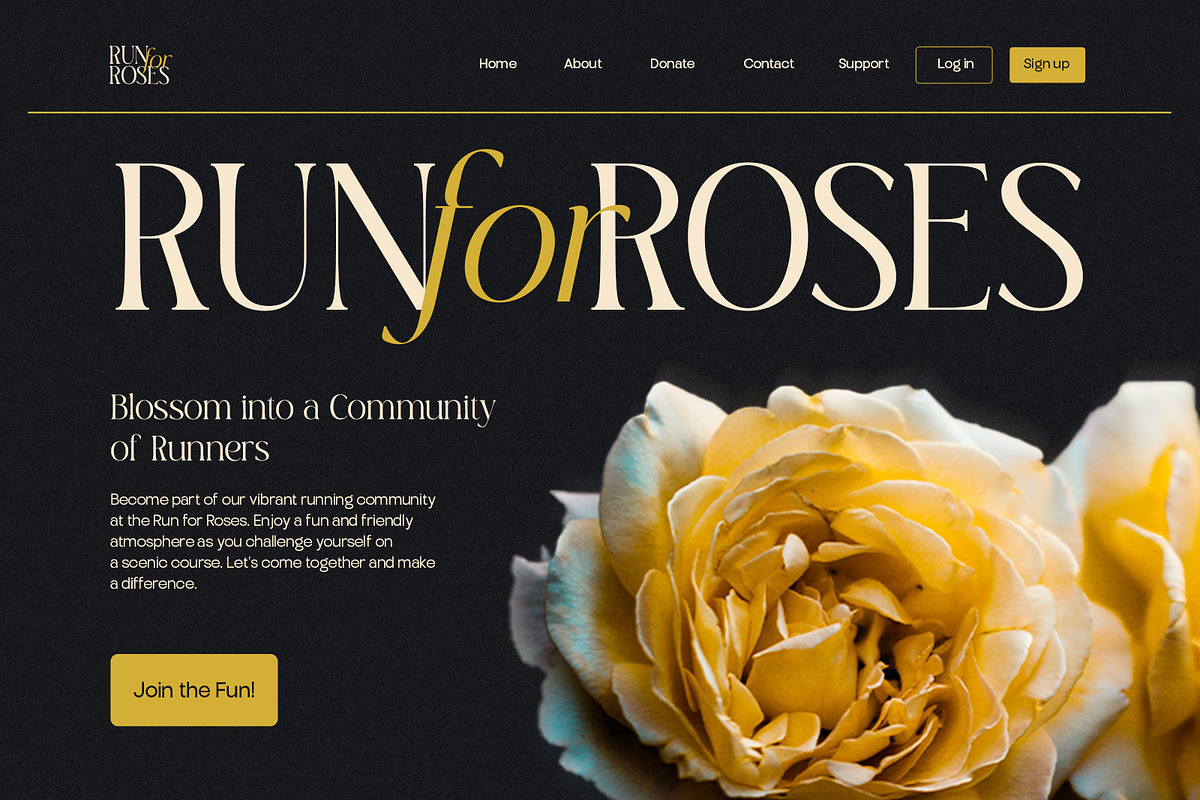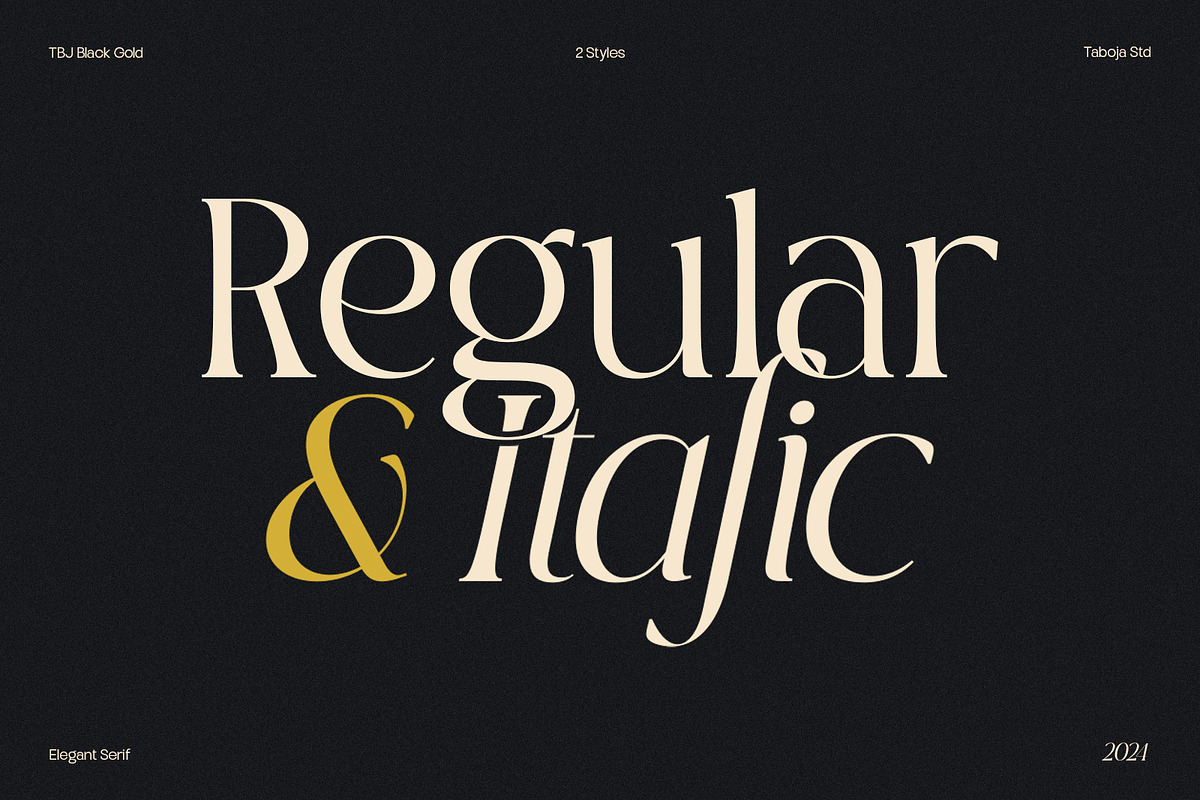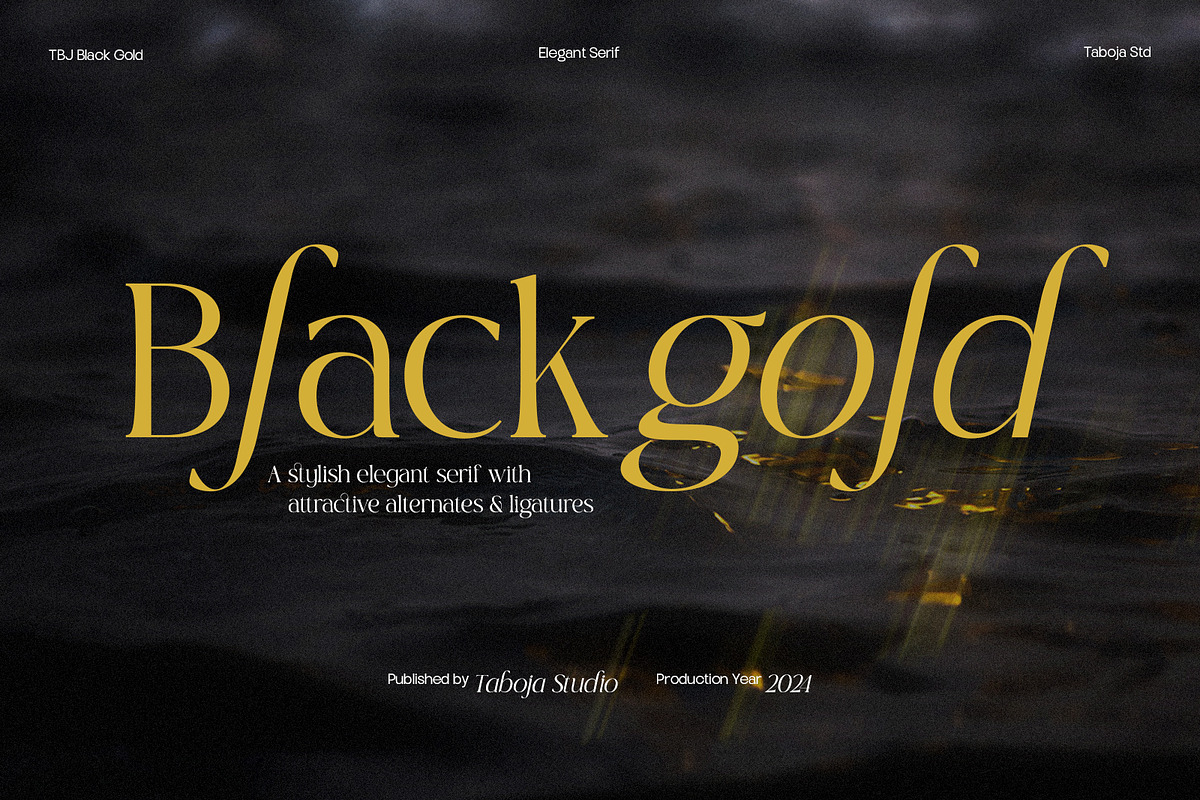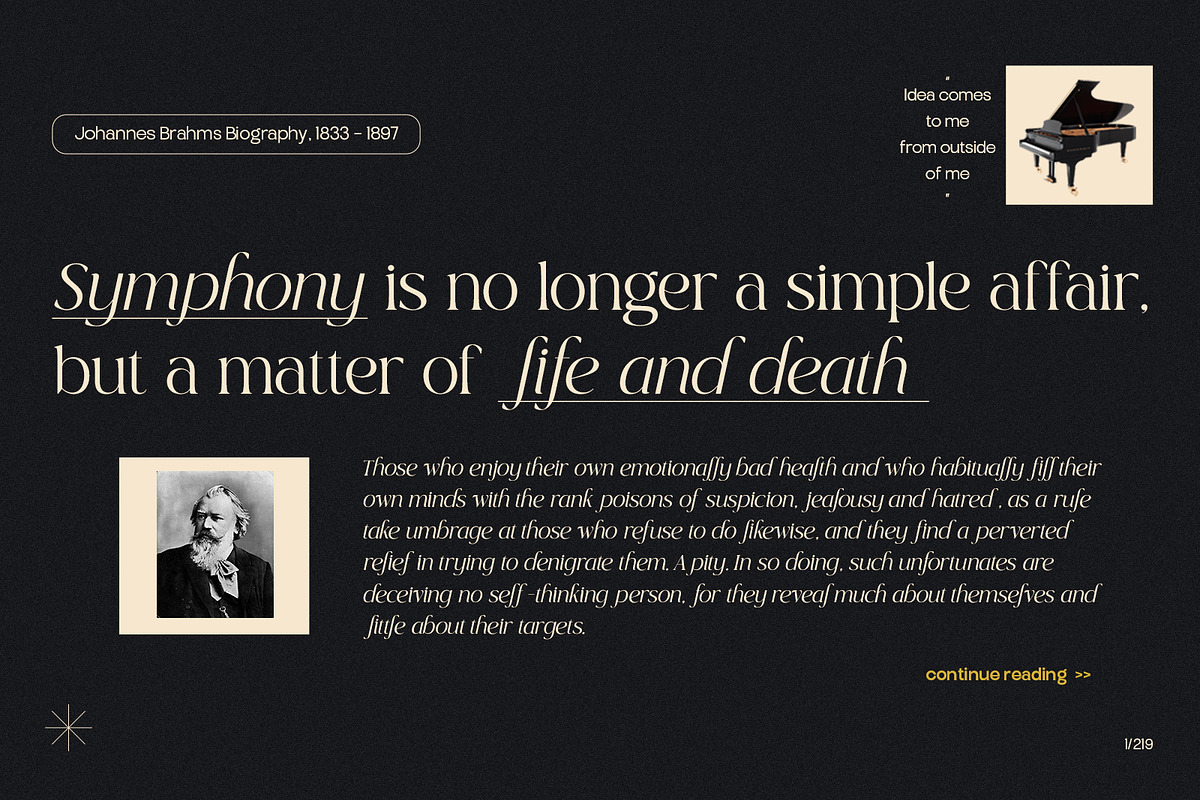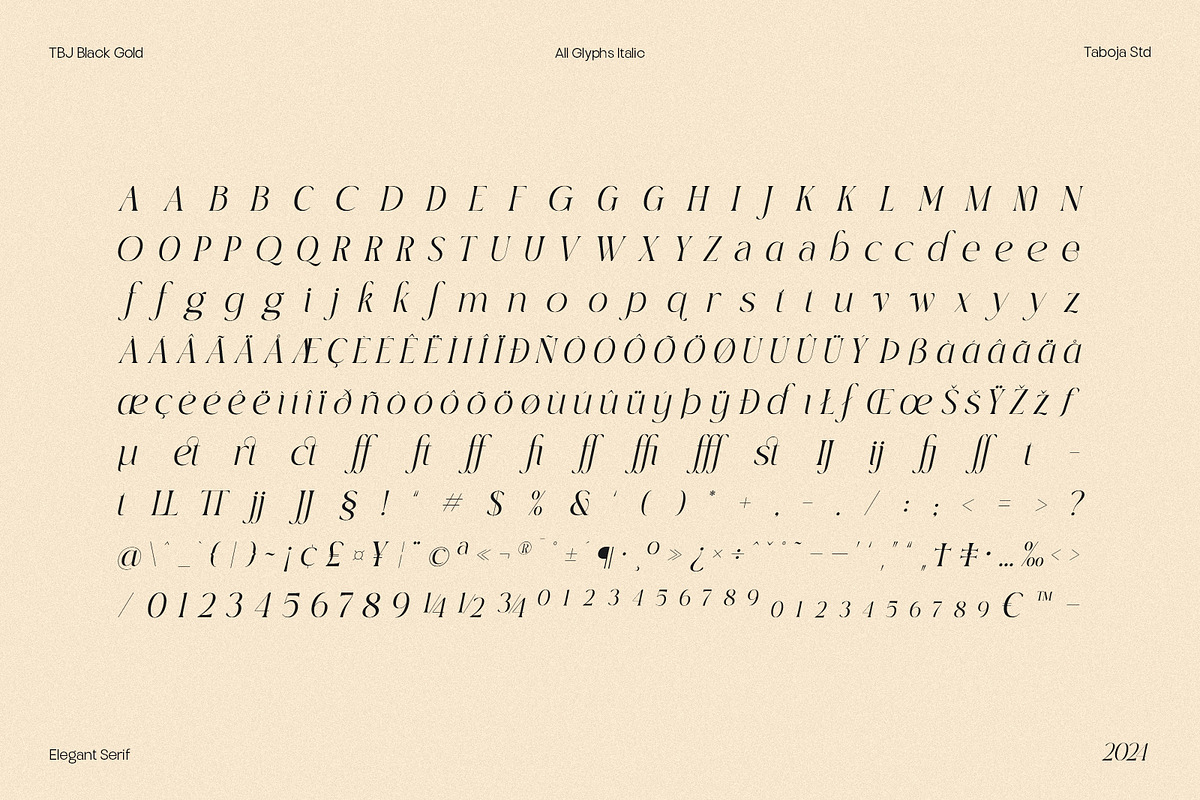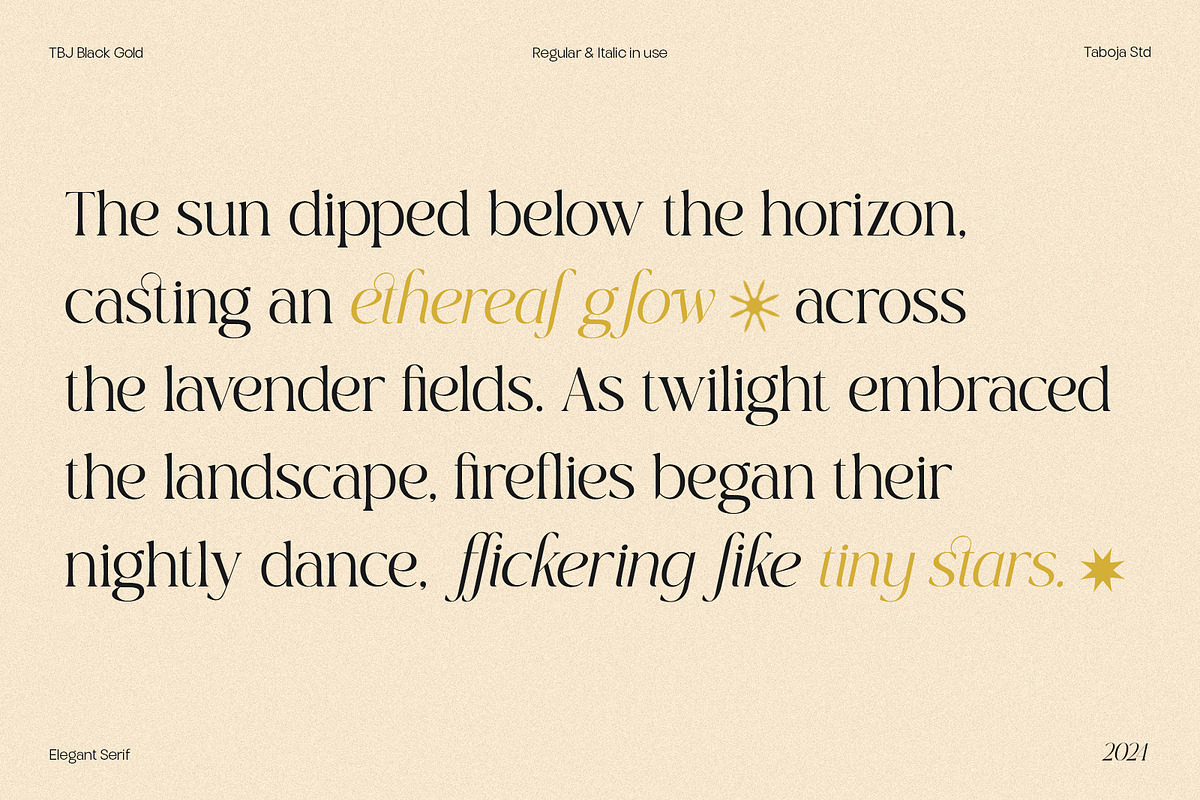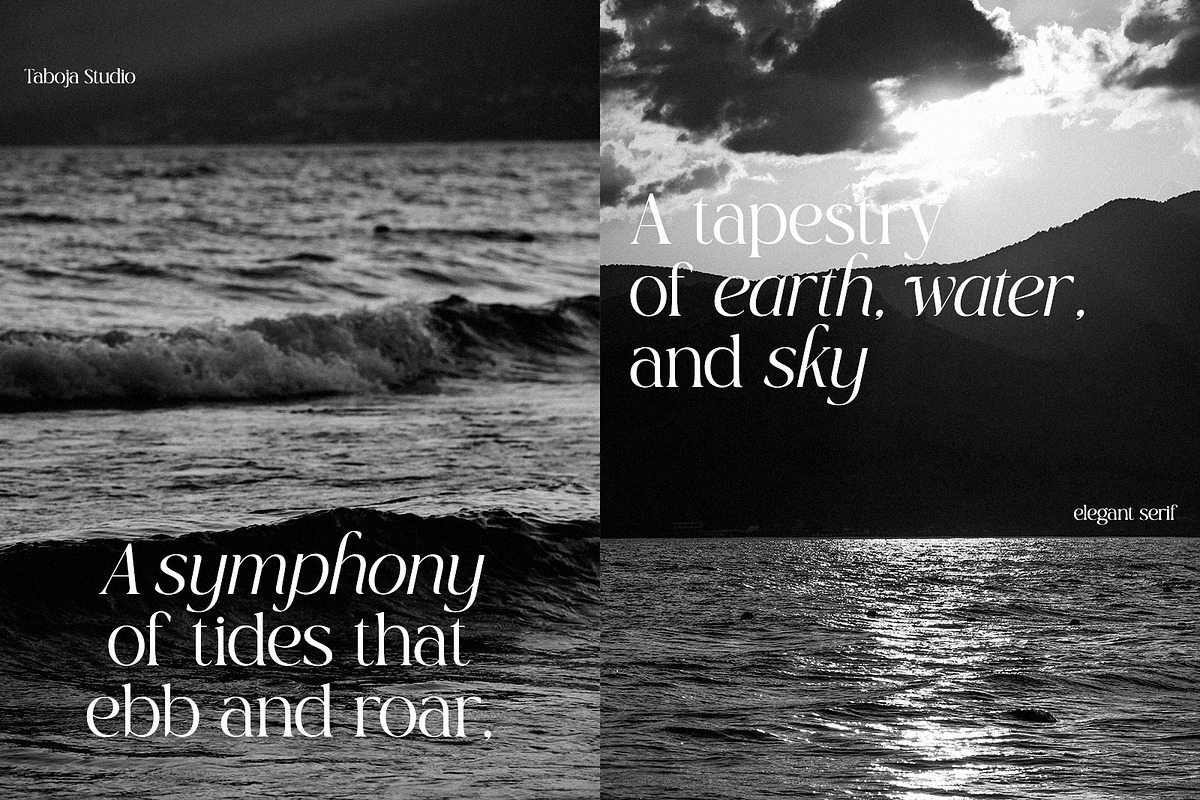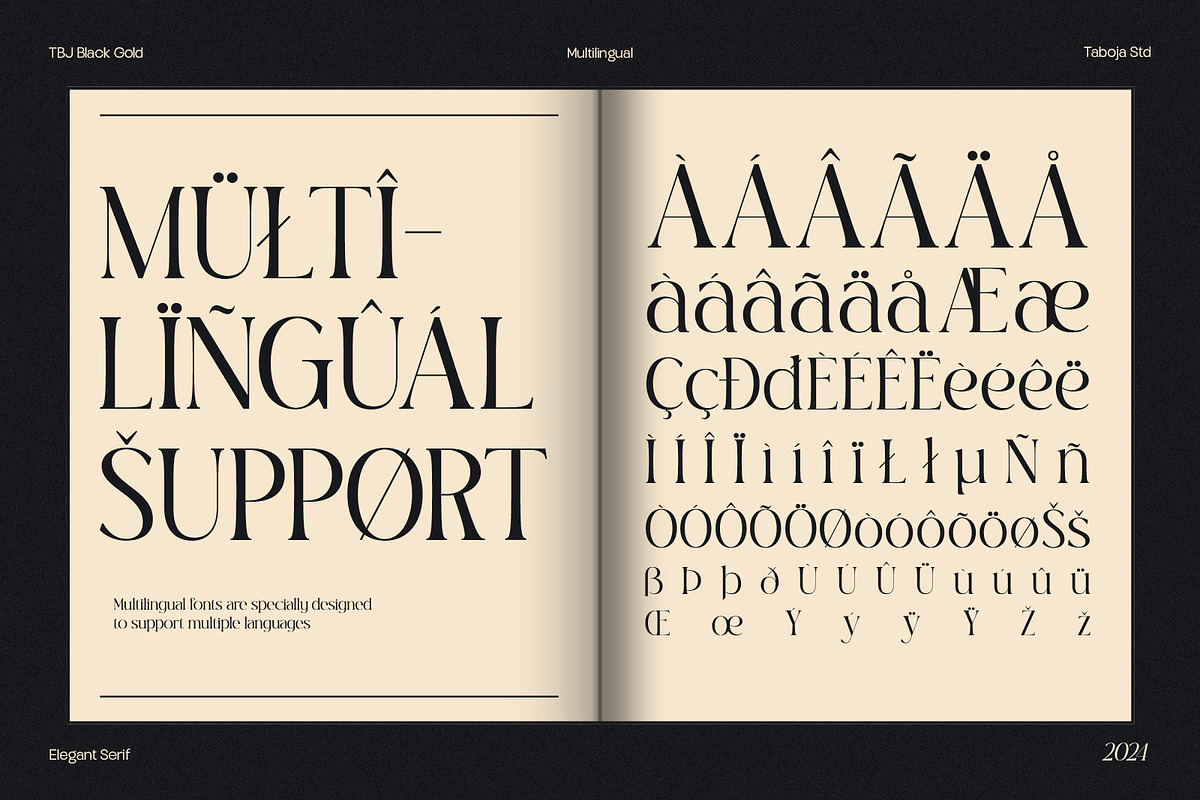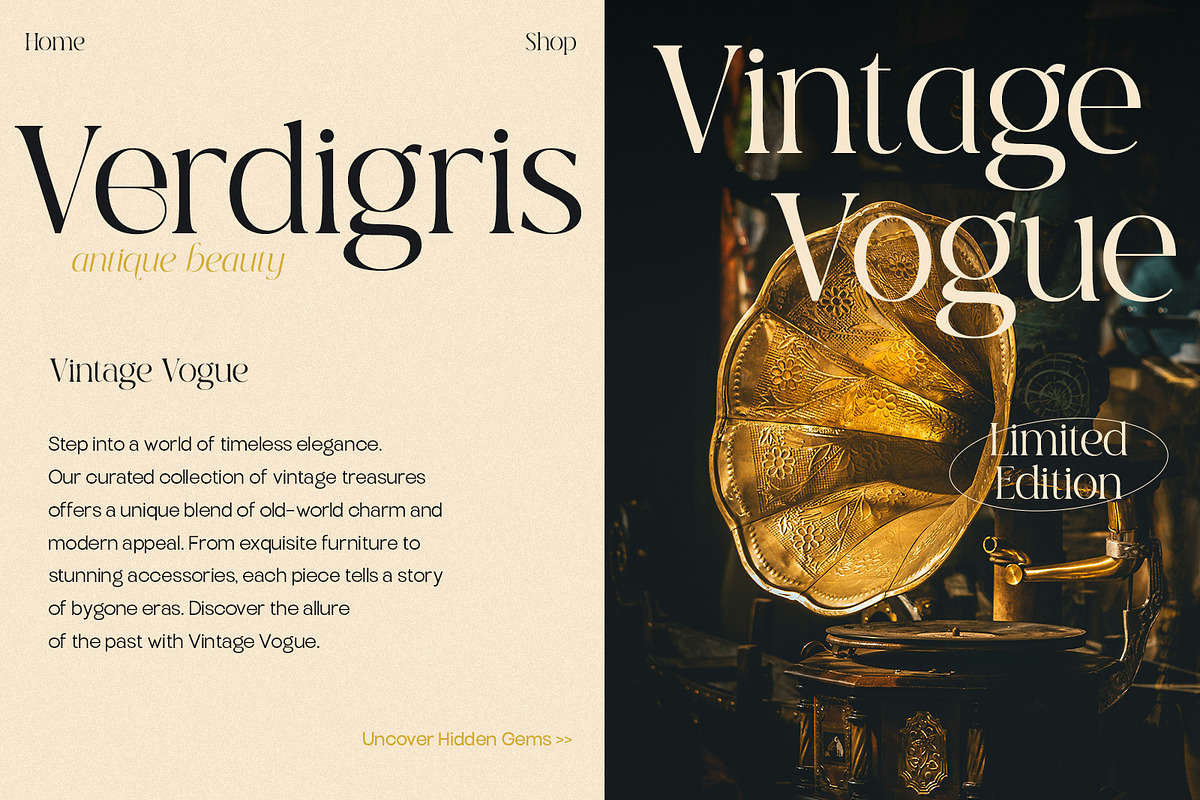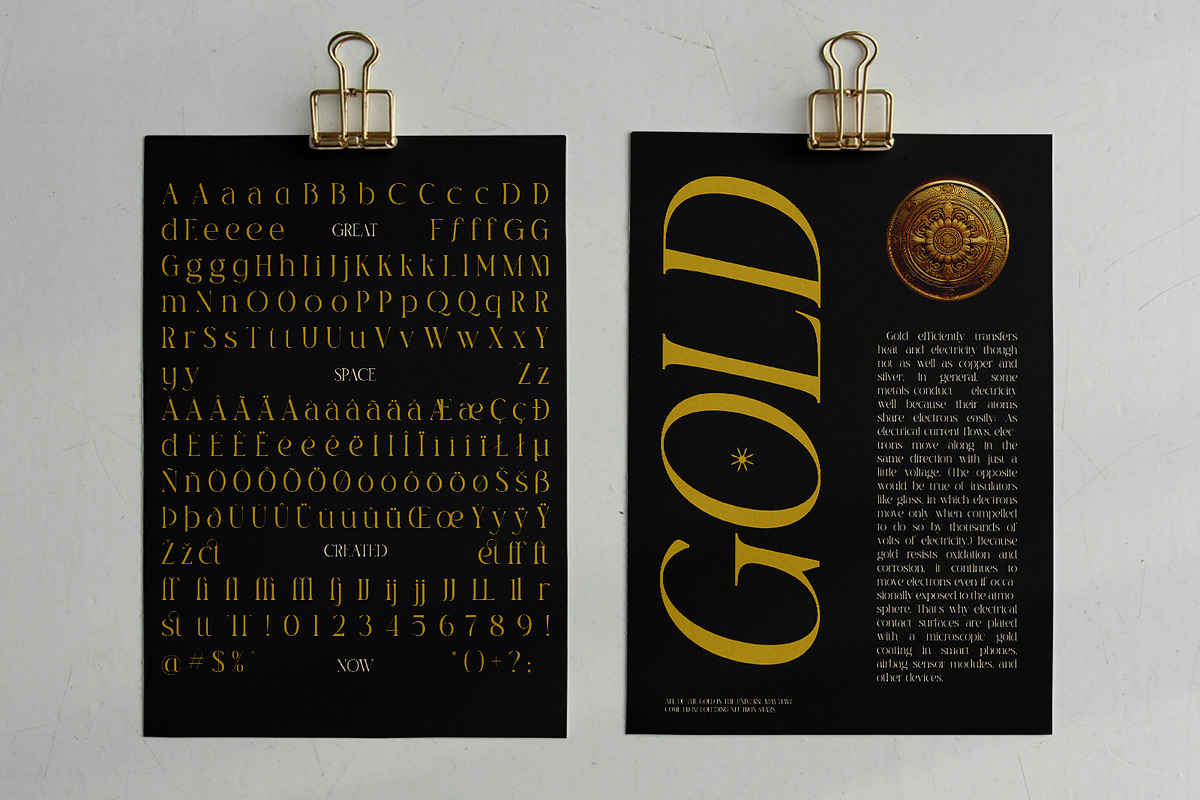
TBJ Black Gold 2-Styles Serif
Elevate your design projects with TBJ Black Gold, a versatile serif font family that exudes elegance and sophistication. Perfectly crafted for modern typography needs, TBJ Black Gold is ideal for branding, editorial design, and more.
Add a touch of timeless elegance to your designs with TBJ Black Gold 2-Styles Serif. Whether you're working on a sophisticated magazine layout, an elegant wedding invitation, or a modern brand identity, TBJ Black Gold offers the perfect combination of style and functionality.
TBJ Black Gold Includes:
- Regular & Italic
- ±293 Glyphs
- ±45 Various Alternates And Ligatures